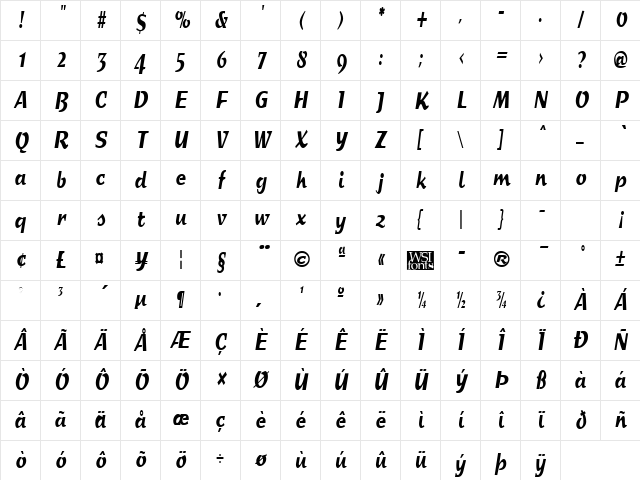
SprintExtraCond is a composed and adaptable typeface that performs quietly and consistently across a wide range of design contexts. Its narrow stance lets it pack a punch even in space-constrained designs.